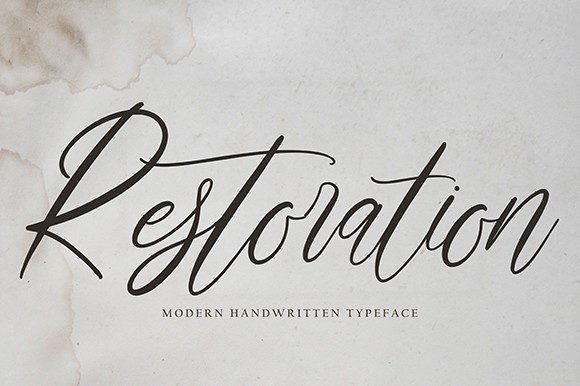
Dive into the world of exquisite lettering and embrace the allure of Restoration Font, a script font family that captivates the essence of timeless beauty. Crafted with an elegant touch, this flowing handwritten font is a true gem, ready to transform your creative projects into masterpieces.
Let your imagination soar as you explore the possibilities of Restoration Font. Its distinct and enduring style lends itself effortlessly to a myriad of applications, from heartfelt personal notes to captivating branding designs. Create enchanting invitations, add a touch of elegance to your social media posts, or craft stunning logos that leave a lasting impression.
With Restoration Font, you have the power to make your words dance and your designs shine. Its delicate curves and graceful lines create a visual symphony that draws the eye and captivates the heart. Whether you're a seasoned designer or just starting your artistic journey, Restoration Font is your perfect companion, guiding you towards creative brilliance.
So, embark on a journey of self-expression and let Restoration Font ignite your imagination. Unleash your inner artist and create designs that speak volumes, leaving a lasting legacy of beauty and inspiration. Embrace the allure of Restoration Font today and elevate your creative endeavors to new heights!